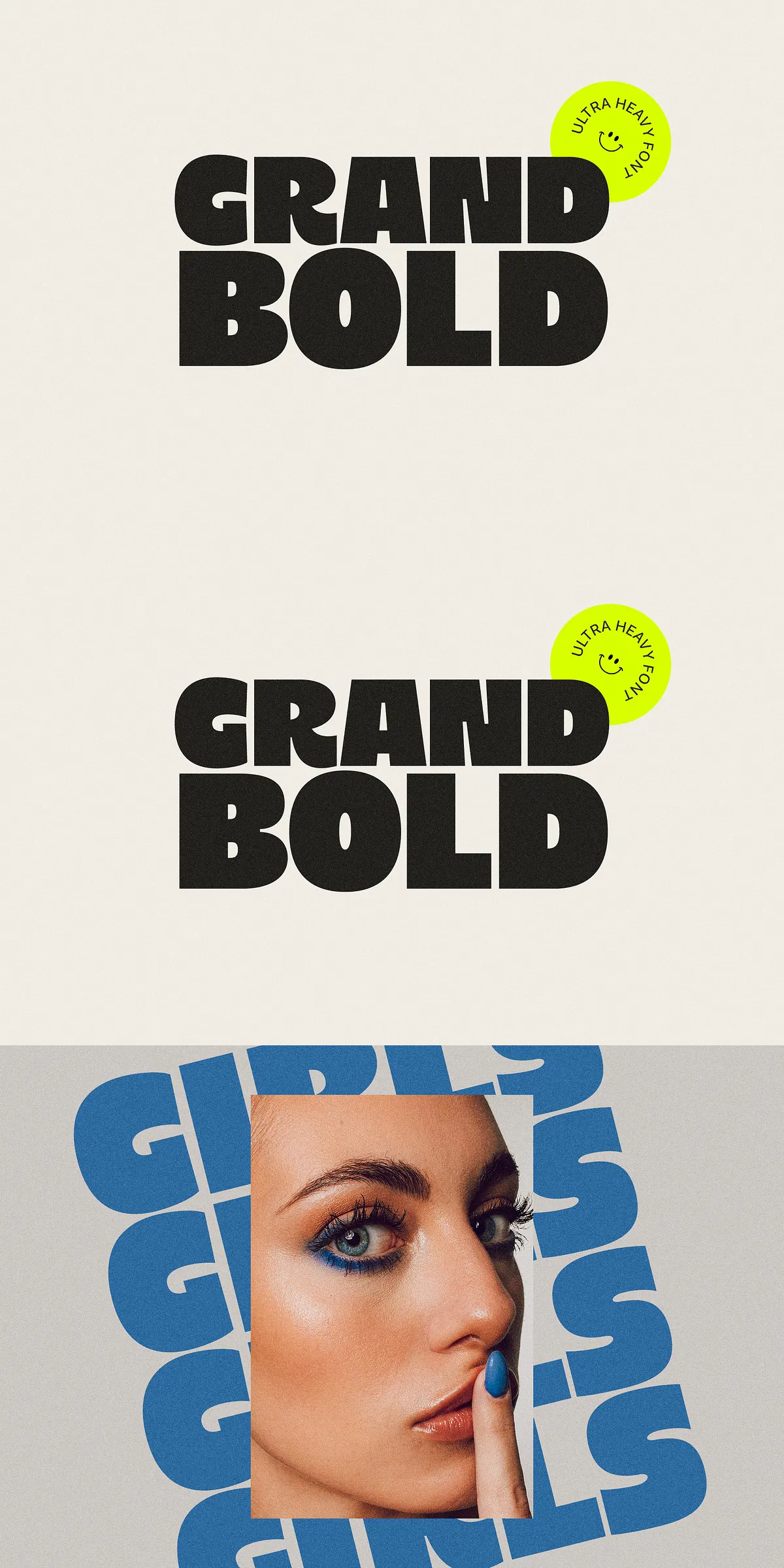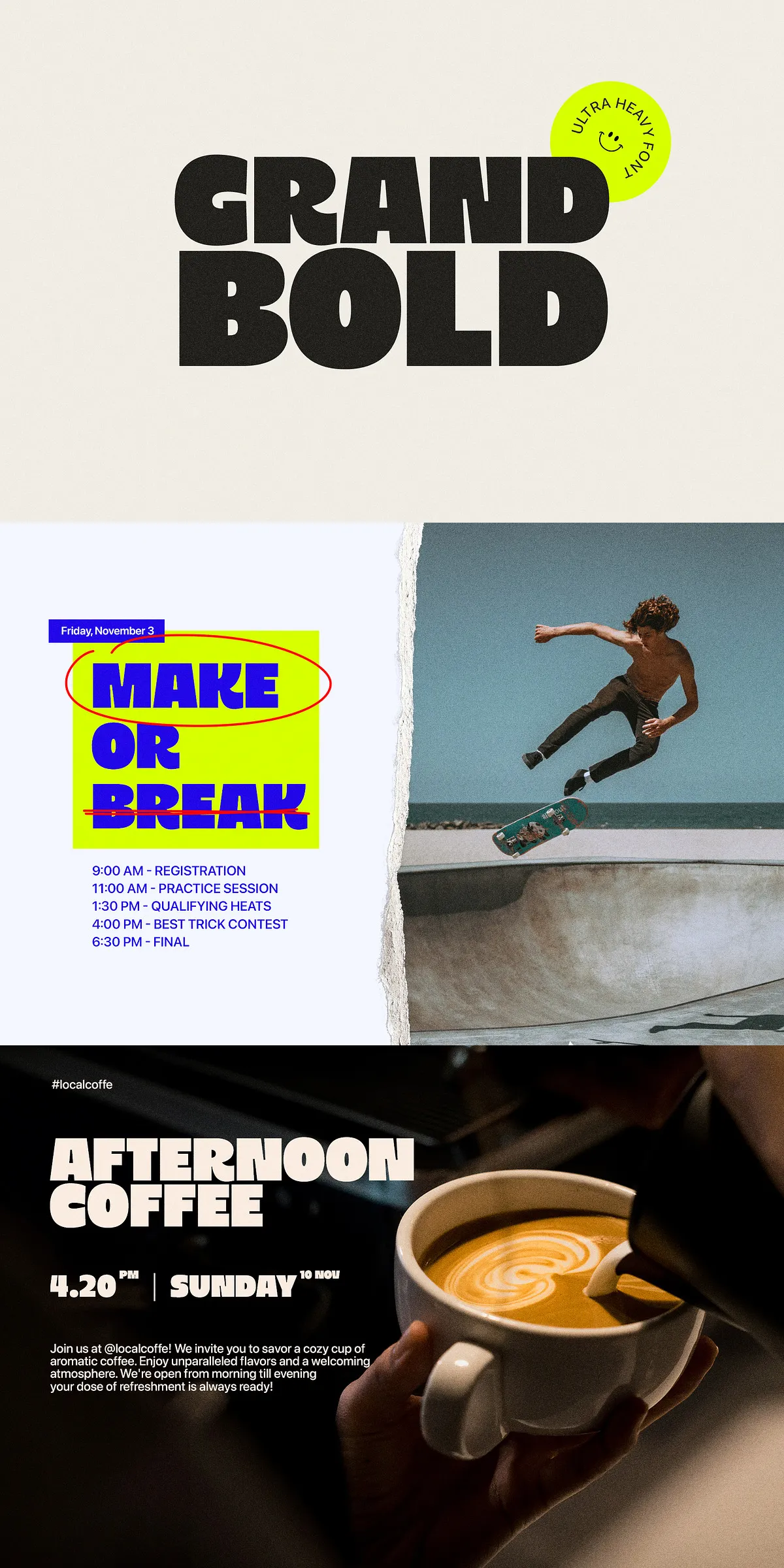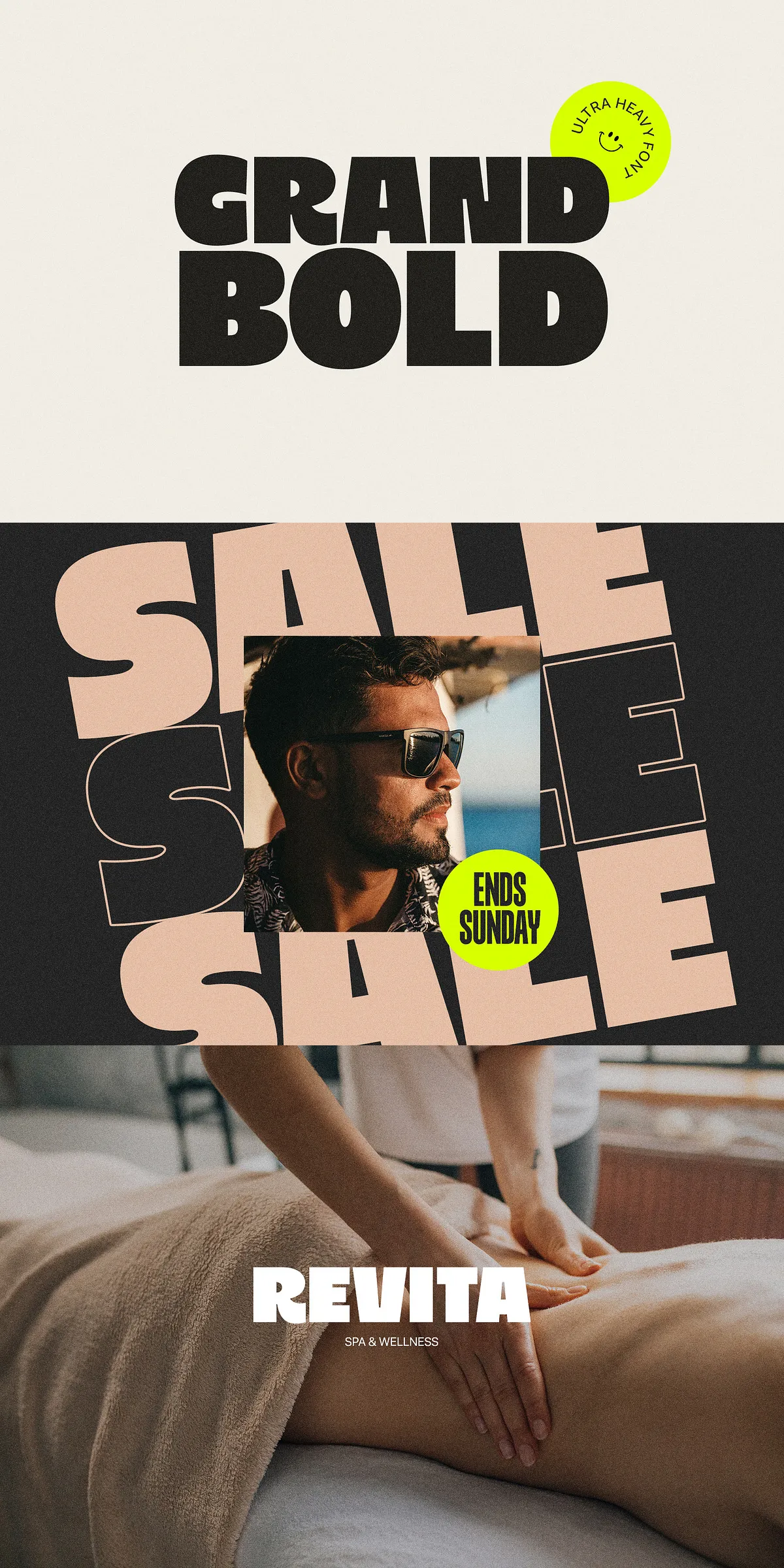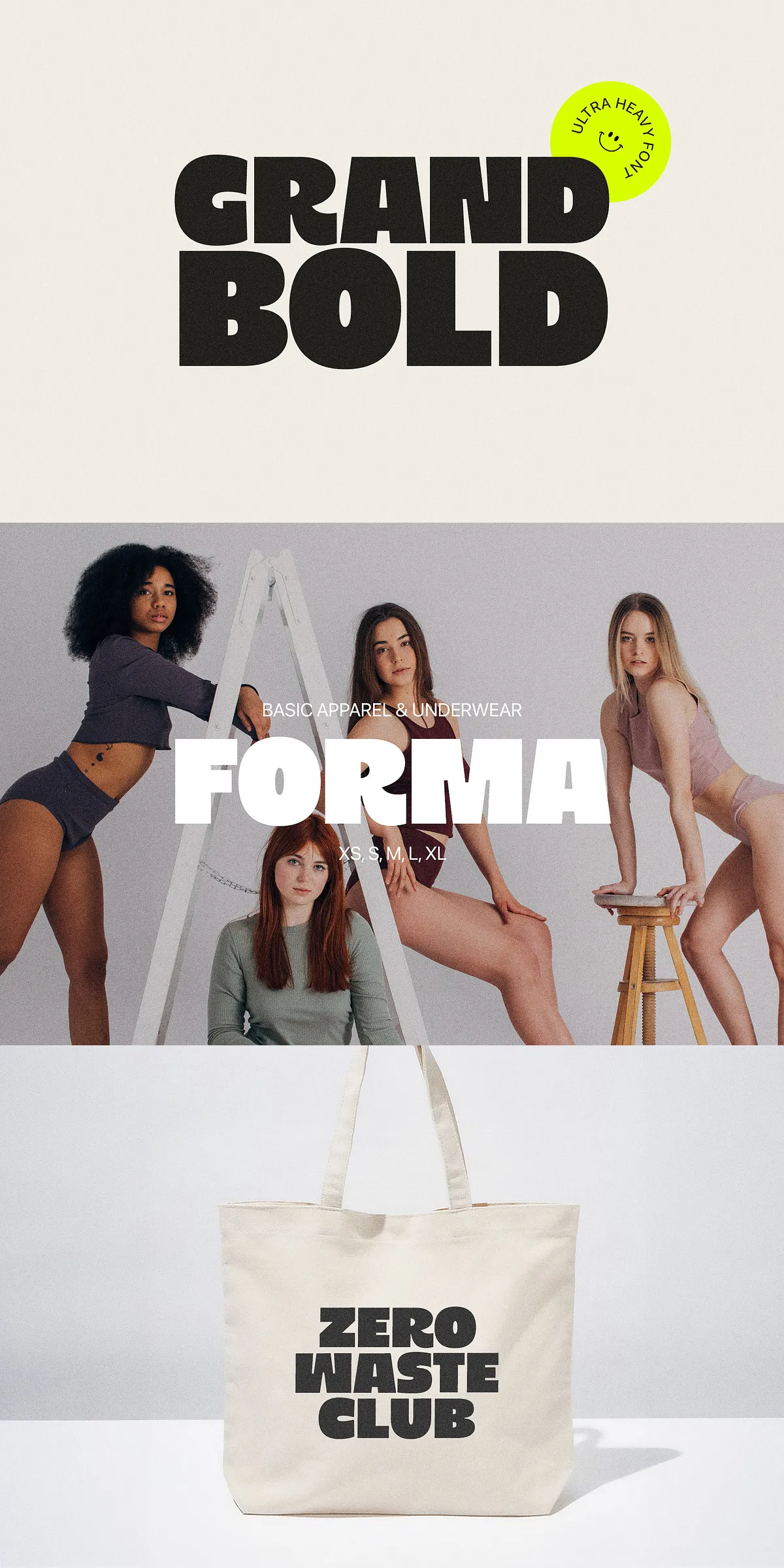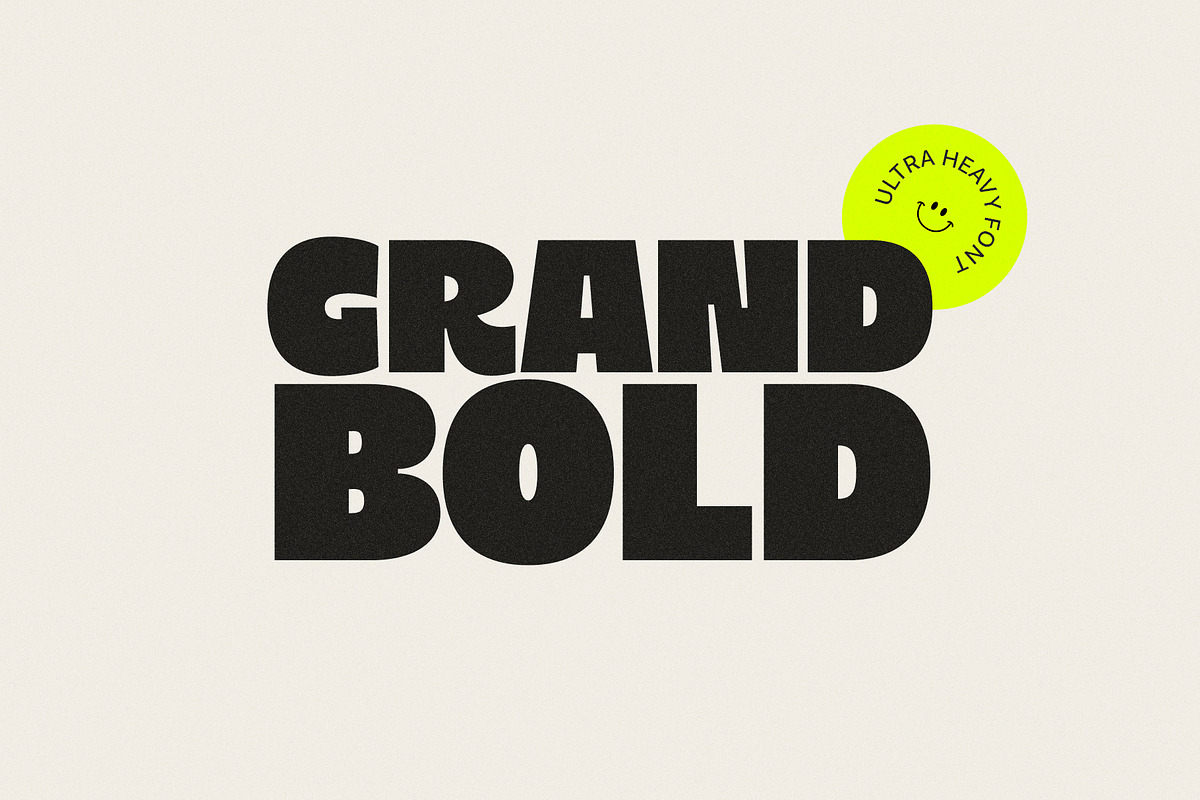
GRAND BOLD Ultra Heavy Font
GRAND BOLD is an ultra heavy, eye-catching font designed with inspiration from the bold, nostalgic aesthetics of the 1980s and 1990s. This font is crafted to deliver maximum visual impact and energy, making it perfect for advertising campaigns, headline typography, editorial layouts, branding projects, and poster designs. If you want your messages to stand out with strong personality and retro flair, GRAND BOLD is the ideal choice.
A Font that Captures the Spirit of the 80s and 90s
Introducing GRAND BOLD means embracing the powerful, unmistakable style of two iconic decades. Its ultra-heavy weight combined with sharp, clean lines captures attention instantly, evoking the vibrant and dynamic designs of past decades. Whether you are working on vintage-inspired branding or want to inject boldness into modern graphic projects, this font balances nostalgia and contemporary strength flawlessly.
Design Features for Maximum Impact
GRAND BOLD includes a comprehensive set of standard alphabet characters and punctuation marks. Every letter and symbol is meticulously designed to maintain legibility at large sizes while retaining a thick, impactful presence that demands viewer attention.
Extensive Multilingual Character Support
One of the key strengths of GRAND BOLD is its broad multilingual support, making it suitable for international projects and audiences. The font includes accented characters covering a wide range of languages from Central Europe, Western Europe, and beyond. Some of the accented glyphs included are:
AÁĂÂÄÀĀĄÅÃÆ, B, CĆČÇĊ, DÐĎĐ, EÉĚÊËĖÈĒĘẼ, F, GĞĢĠḠ, HĦ, IIJÍÎÏİÌĪĮĨ, J, KĶ, LĹĽĻŁ, M, NŃŇŅÑ, OÓÔÖÒŐŌØÕŒ, PÞ, Q, RŔŘŖ, SŚŠŞȘẞ, TŤŢȚ, UÚÛÜÙŰŪŲŮŨ, V, WẂŴẄẀ, X, YÝŶŸỲỸ, ZŹŽŻ.
This extensive character set ensures that GRAND BOLD can be confidently applied to global branding, editorial pieces, advertising, and artistic works without language constraints.
Practical Uses for Strong Brand and Editorial Design
GRAND BOLD is particularly suited for projects where bold headlines and distinct visual statements are essential. It works exceptionally well for:
• Advertising materials that need to capture attention immediately
• Branding and logo designs that require ultra-heavy weight for a strong identity
• Editorial layouts where impactful titles and headers enhance readability and style
• Poster designs that demand bold and nostalgic aesthetics to connect with audience emotions
Why Choose GRAND BOLD for Your Next Project?
If you are looking to inject ultra-heavy, bold energy into your designs while channeling the iconic styles of the 80s and 90s, GRAND BOLD is the perfect font. Its comprehensive character set, multilingual support, and PUA encoding combine to create a font that is not only visually striking but also extremely practical and easy to use.
GRAND BOLD amplifies your advertising, editorial, branding, and poster work with a nostalgic yet fresh approach, making your designs unforgettable.